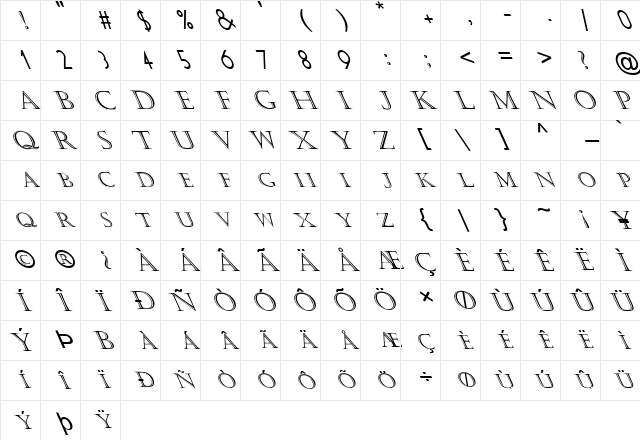
FZ OUTLINE 4 LEFTY Normal
Design Context for FZ OUTLINE 4 LEFTY
FZ OUTLINE 4 LEFTY is built around its visual character rather than neutral utility - its distinctive forms are designed to make an impression at display sizes.
Font Pairing: Pair with a clean neutral sans-serif for body copy to let FZ OUTLINE 4 LEFTY's character lead without overwhelming the composition.
Pro Tip: Use FZ OUTLINE 4 LEFTY exclusively at display sizes - it was designed to be seen, not read at length. Let a neutral companion handle body copy.